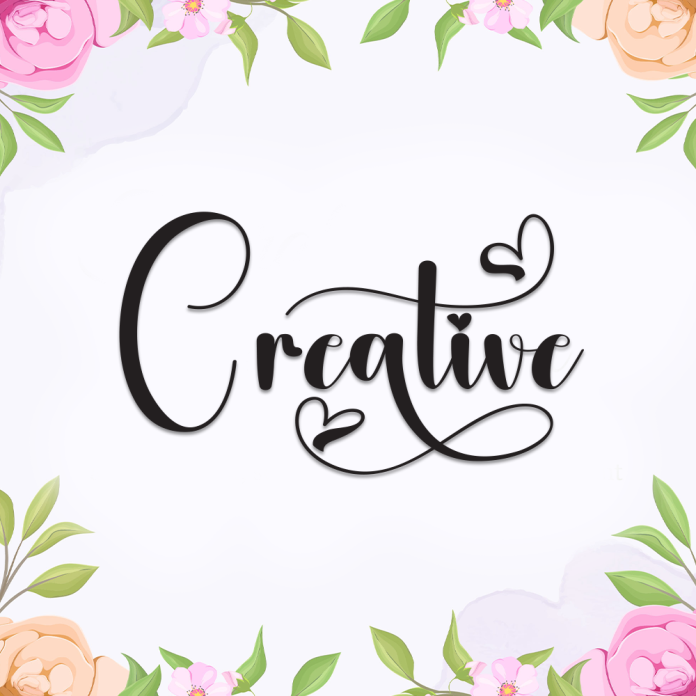
Creative is a fresh and expressive handwriting font that embodies personality and charm. With its casual strokes and smooth curves, this font gives off a spontaneous and modern handwritten feel.
It’s a great choice for personal projects, creative branding, lifestyle blogs, social media posts, and quotes that need a fun, authentic touch.
Modern handwritten style with playful energy
Great readability for both titles and body text
Let your ideas flow freely with the lively and authentic vibes of Creative!